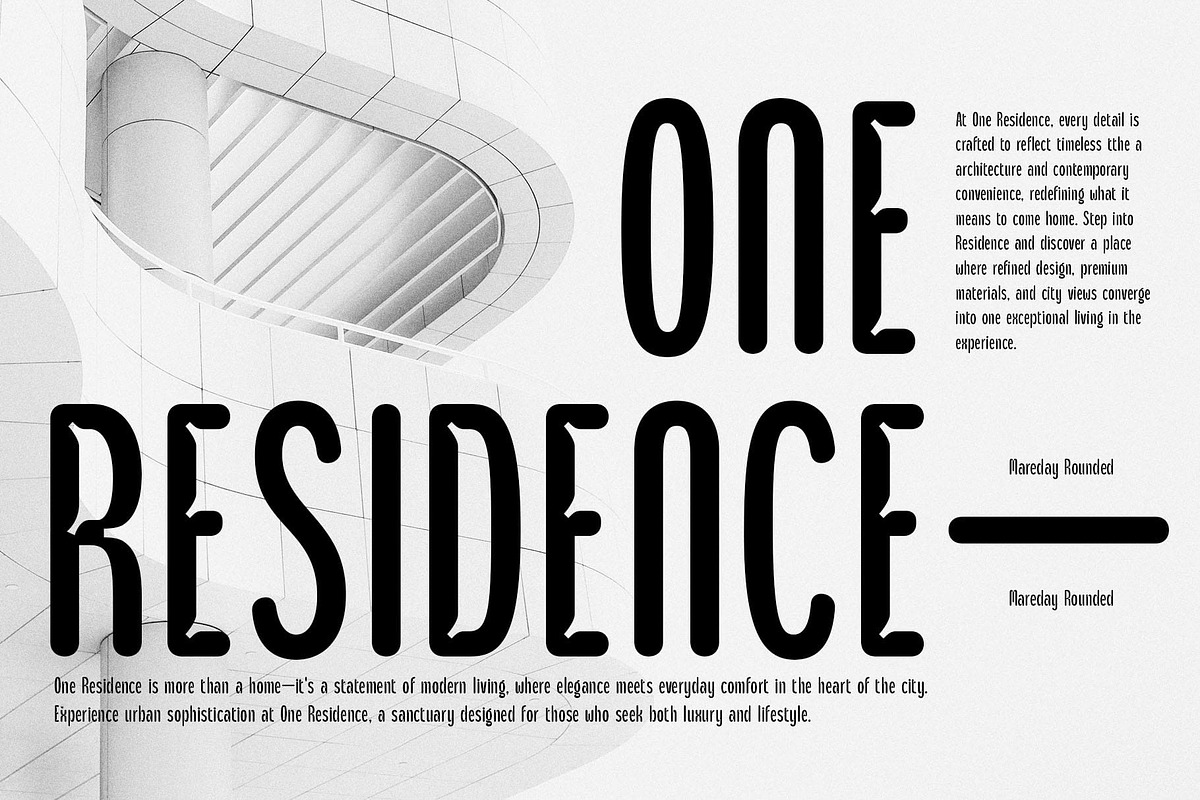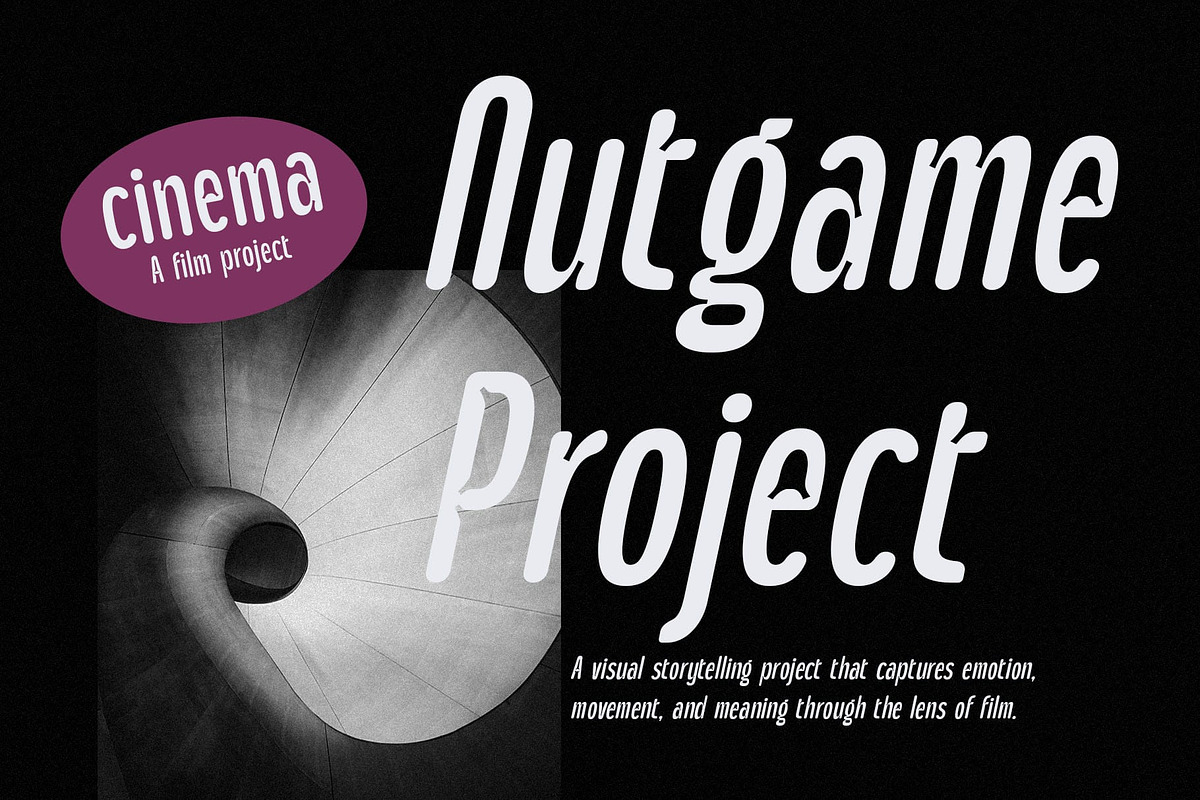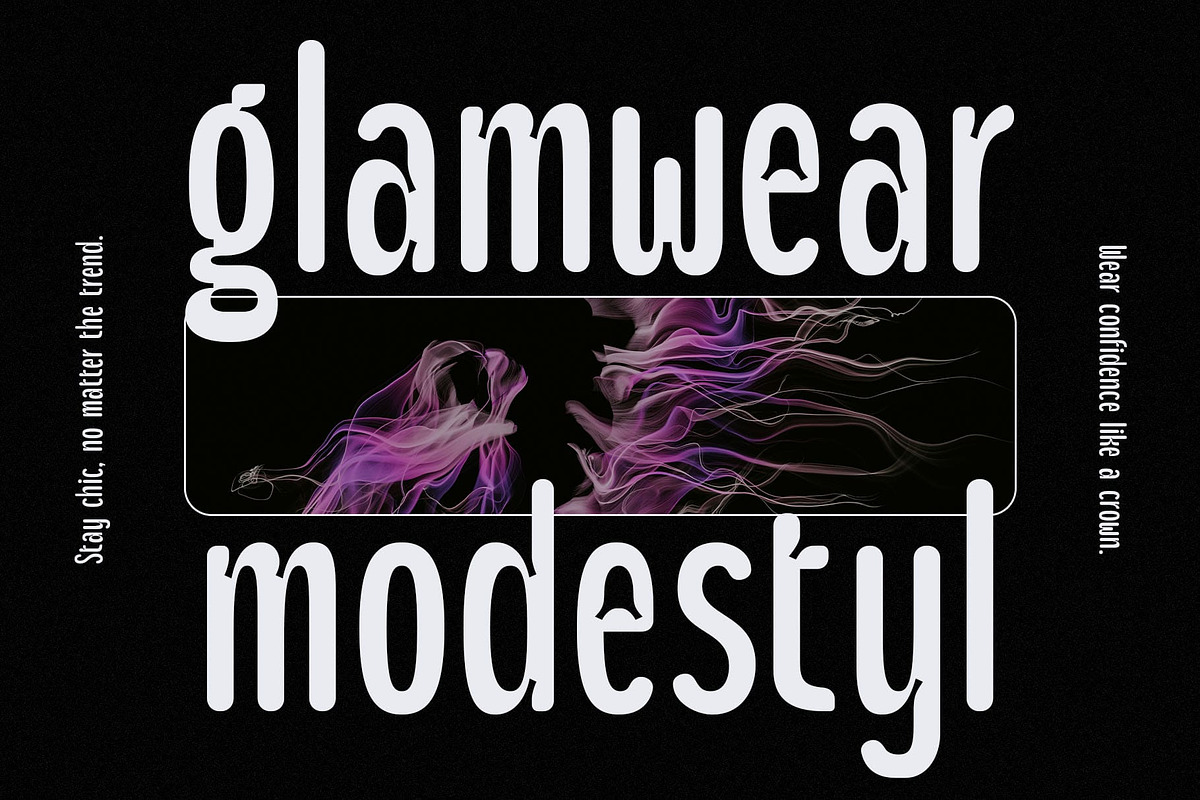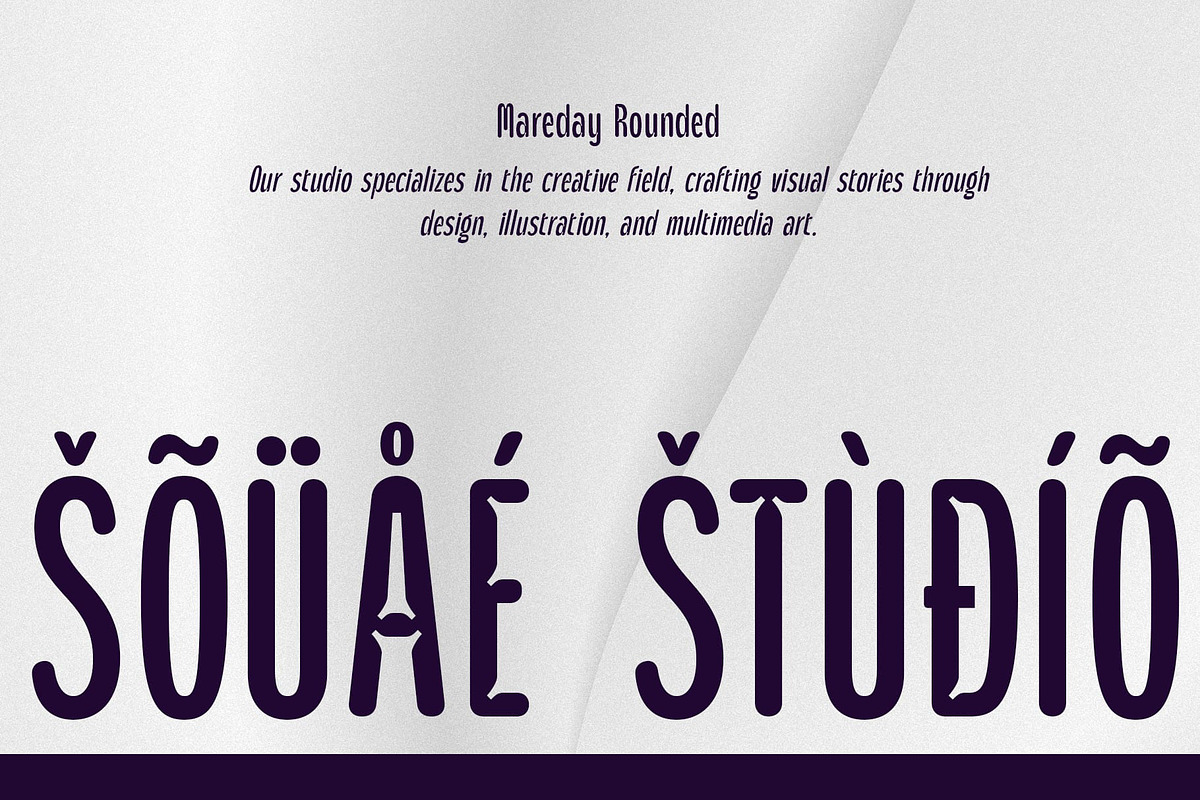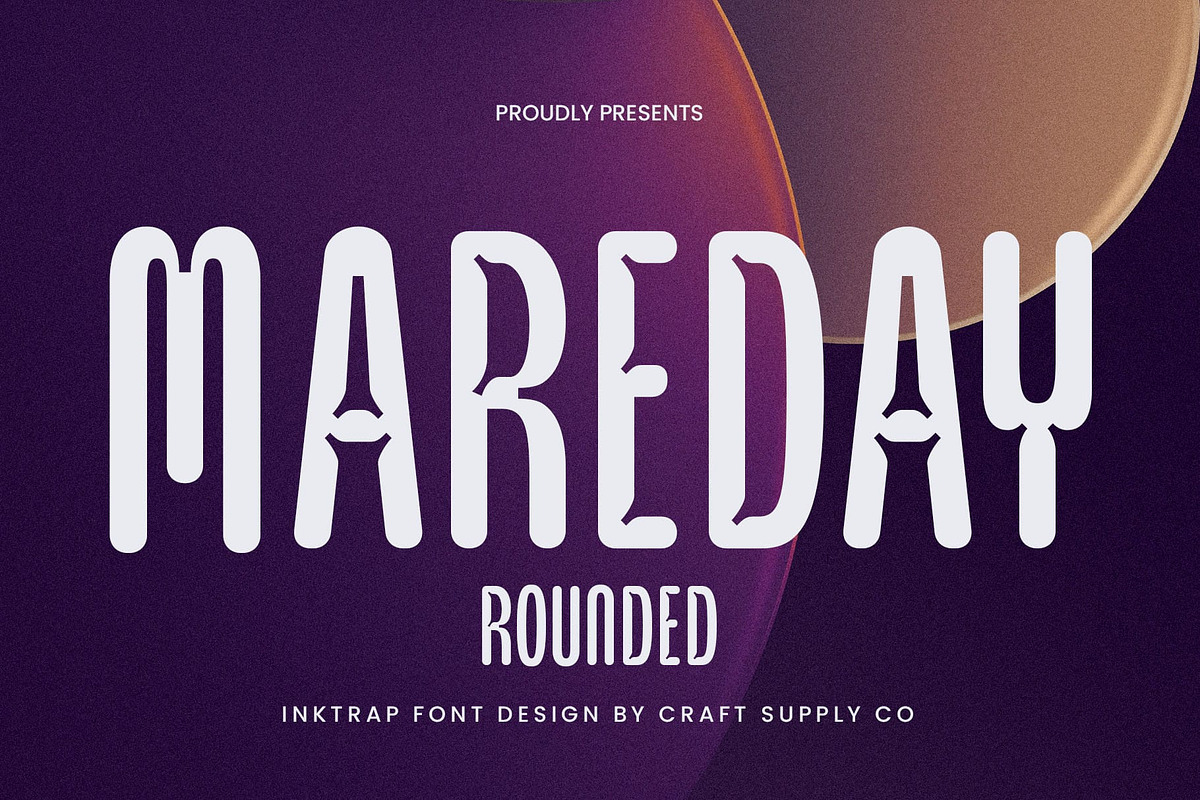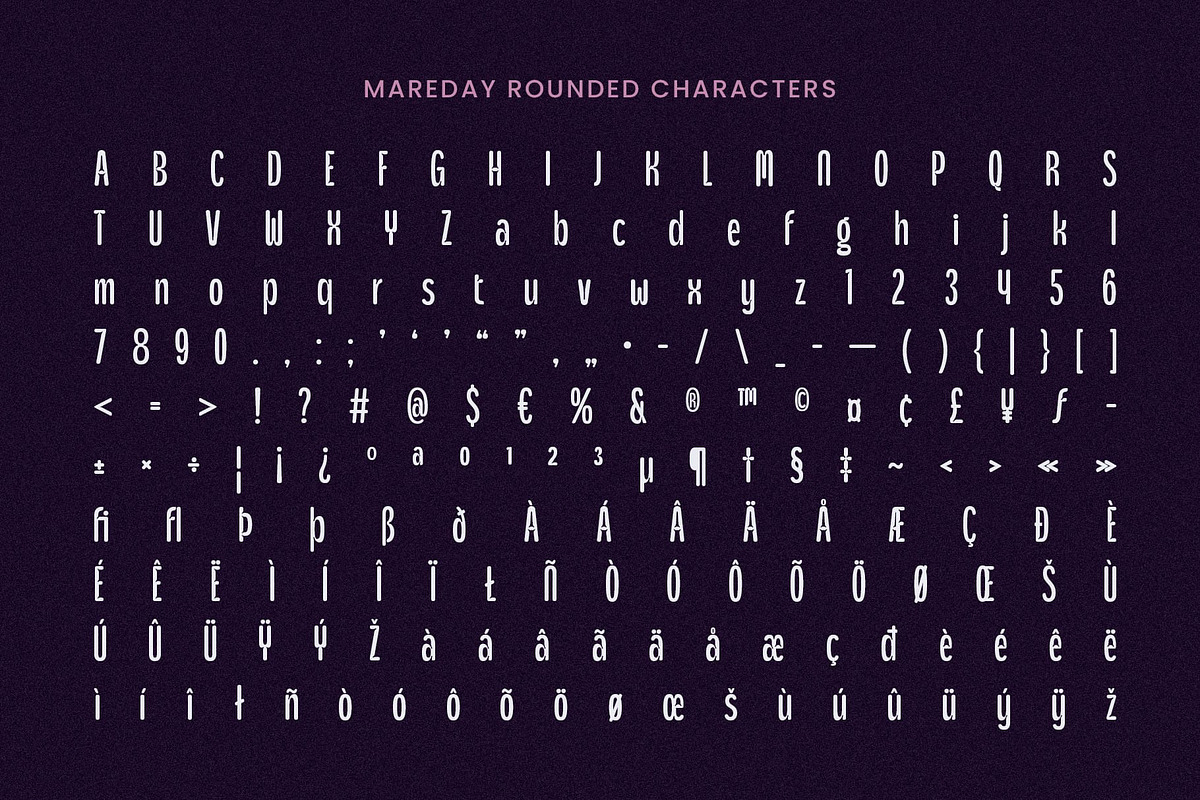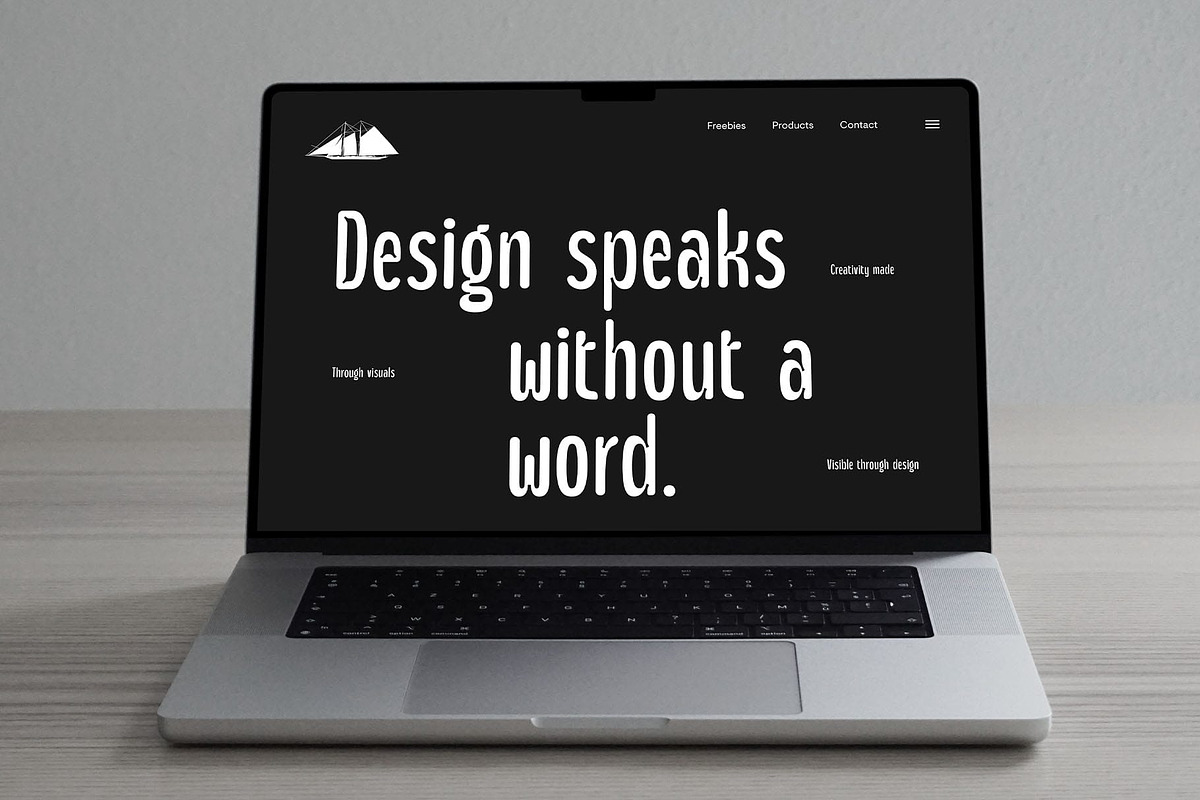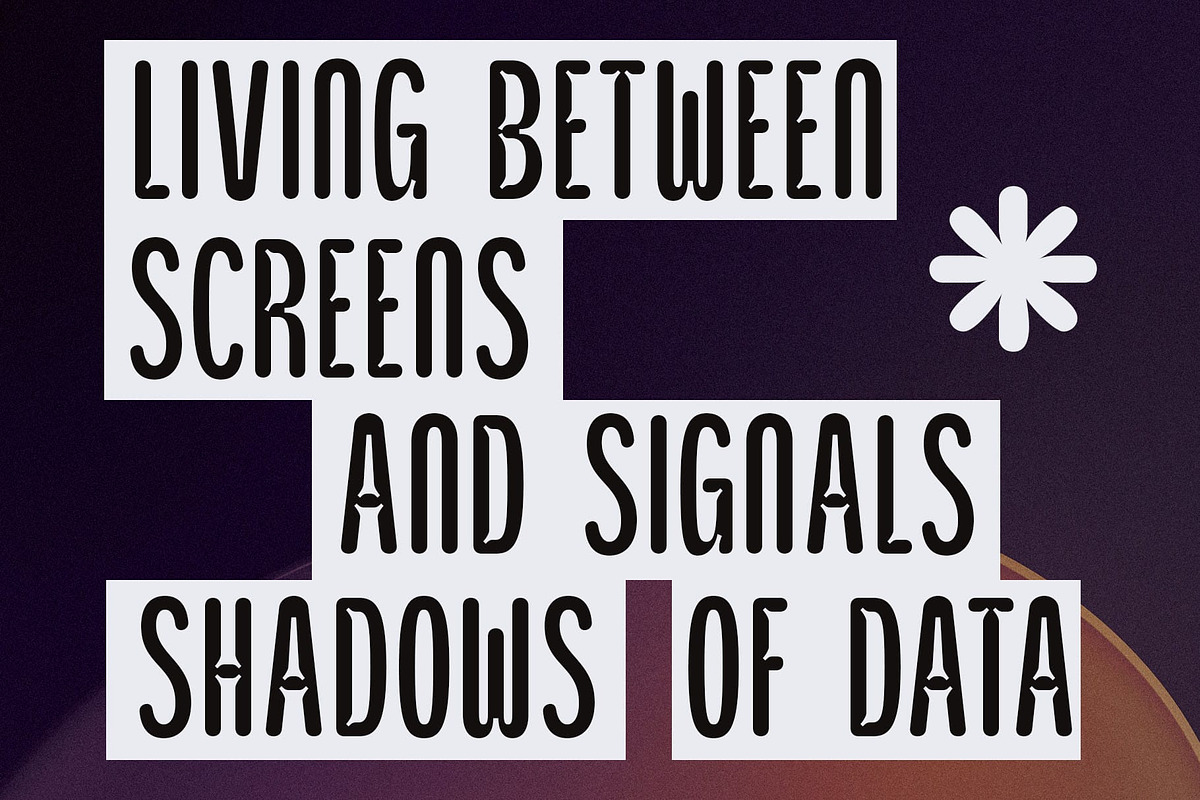
Mareday Rounded
Mareday Rounded Font: Modern Clarity with Soft Precision
Slim and Compact Design Mareday Rounded is a modern sans-serif font that combines a condensed structure with a clean, contemporary design. The slim letterforms and narrow proportions give it a compact appearance, making it ideal for designs that need to maximize space while maintaining clarity.
Inktrap Details for Enhanced Clarity Featuring inktrap details, Mareday Rounded stands out with its thoughtful design that reduces sharpness at the corners of each letter. This small but significant feature enhances legibility, especially at smaller sizes, ensuring that the font remains clear and easy to read across various mediums, from print to digital displays.
Rounded Shapes for a Softer, Approachable Feel While maintaining its contemporary edge, the rounded shapes in Mareday Rounded offer a softer and more approachable vibe. The combination of rounded curves with the clean, modern lines of the font adds a friendly and welcoming quality, making it versatile for both corporate and creative uses.
Perfect for Modern, High-Impact Designs Mareday Rounded is ideal for a wide range of modern design projects, including branding, editorial layouts, and digital interfaces. Its sleek, condensed design, combined with its inktrap and rounded elements, provides a strong visual presence while ensuring excellent readability. Whether you’re creating a sophisticated brand identity or a cutting-edge digital display, Mareday Rounded delivers a professional, approachable, and highly impactful solution.